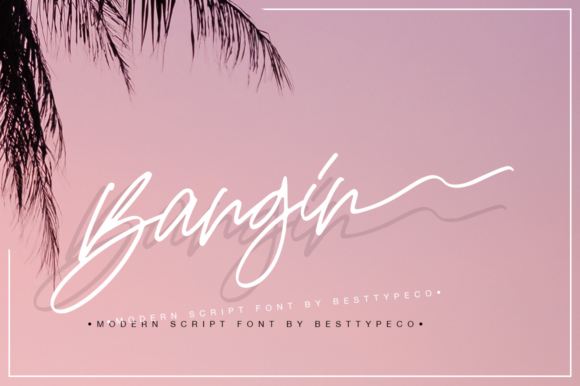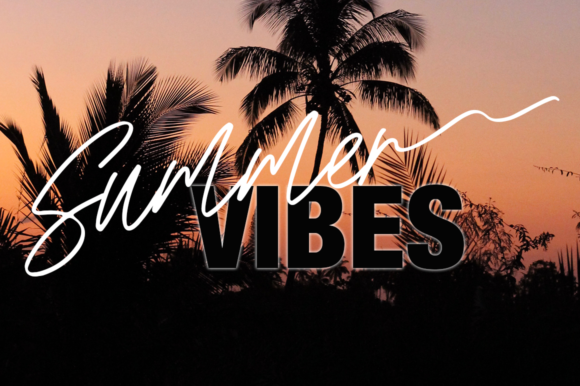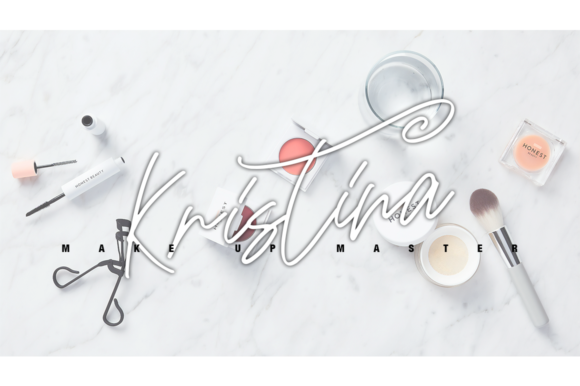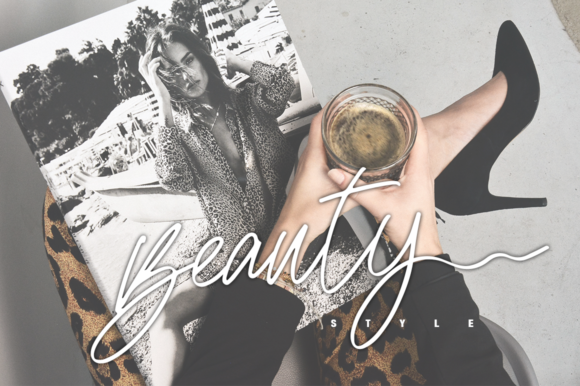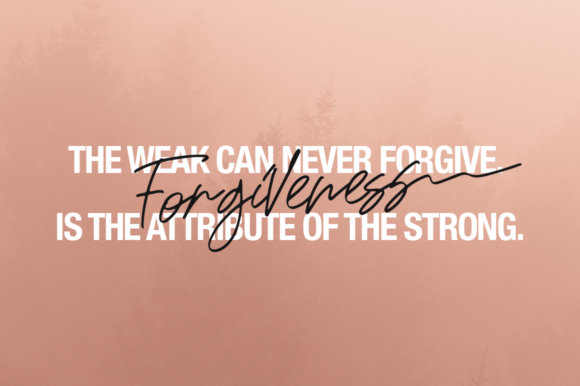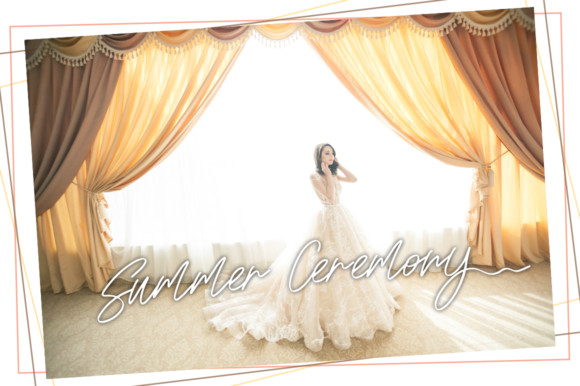
Bangin Font
About Bangin Font
Inspired by tropical palm trees and neon street signs, Banging is a smooth and charming script with a slightly vintage touch.